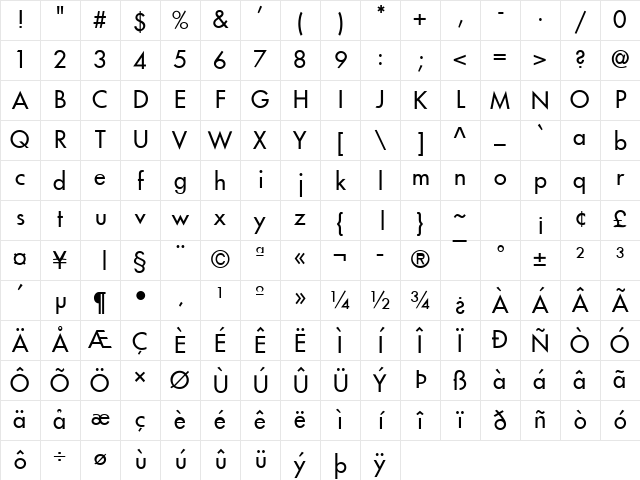
Fusi Normal
Fusi Family
Complete Fusi Normal glyph index. Displaying only characters natively supported by Fusi Normal font.
Design Context for Fusi
Fusi is a composed and adaptable typeface that performs quietly and consistently across a wide range of design contexts.